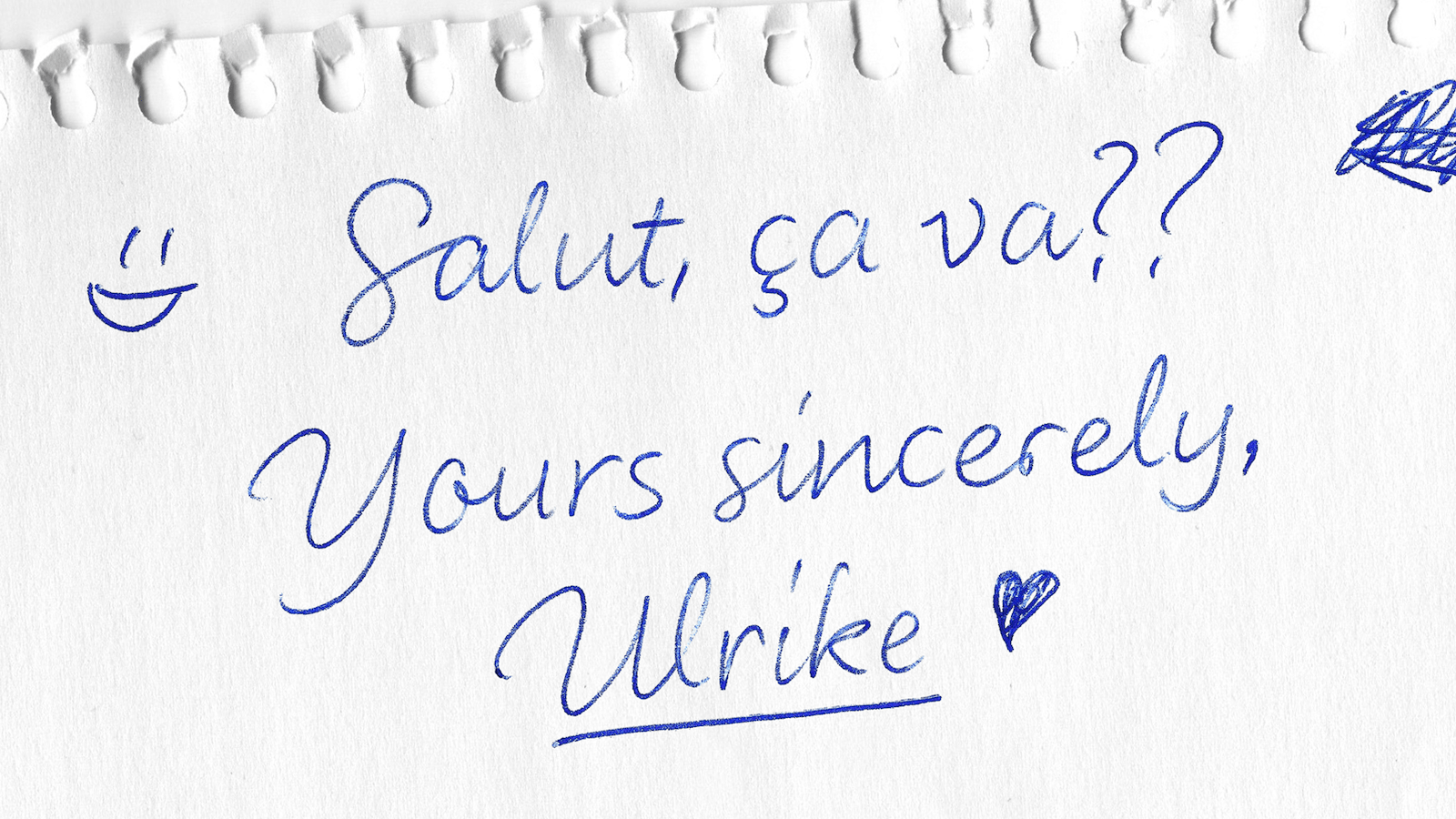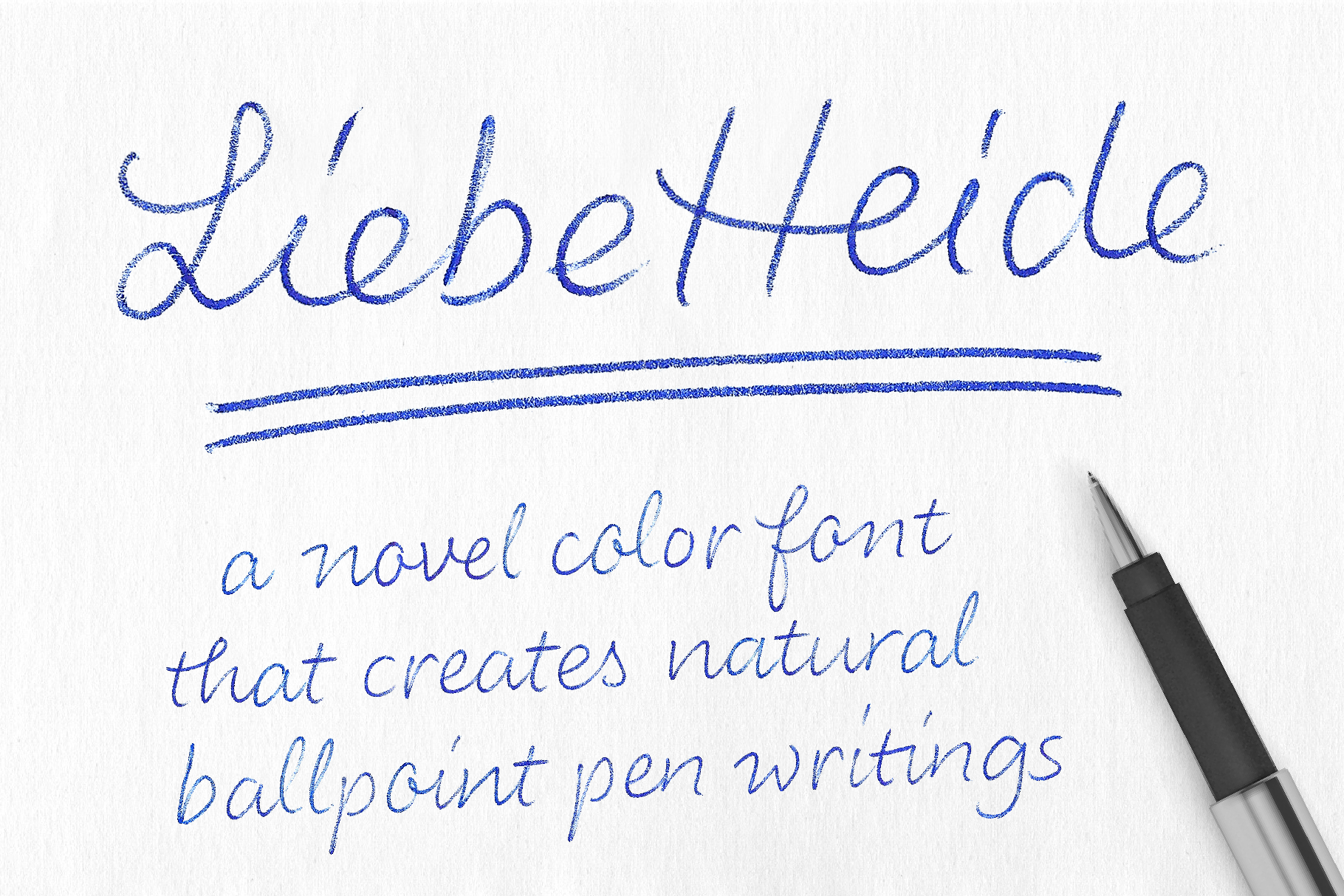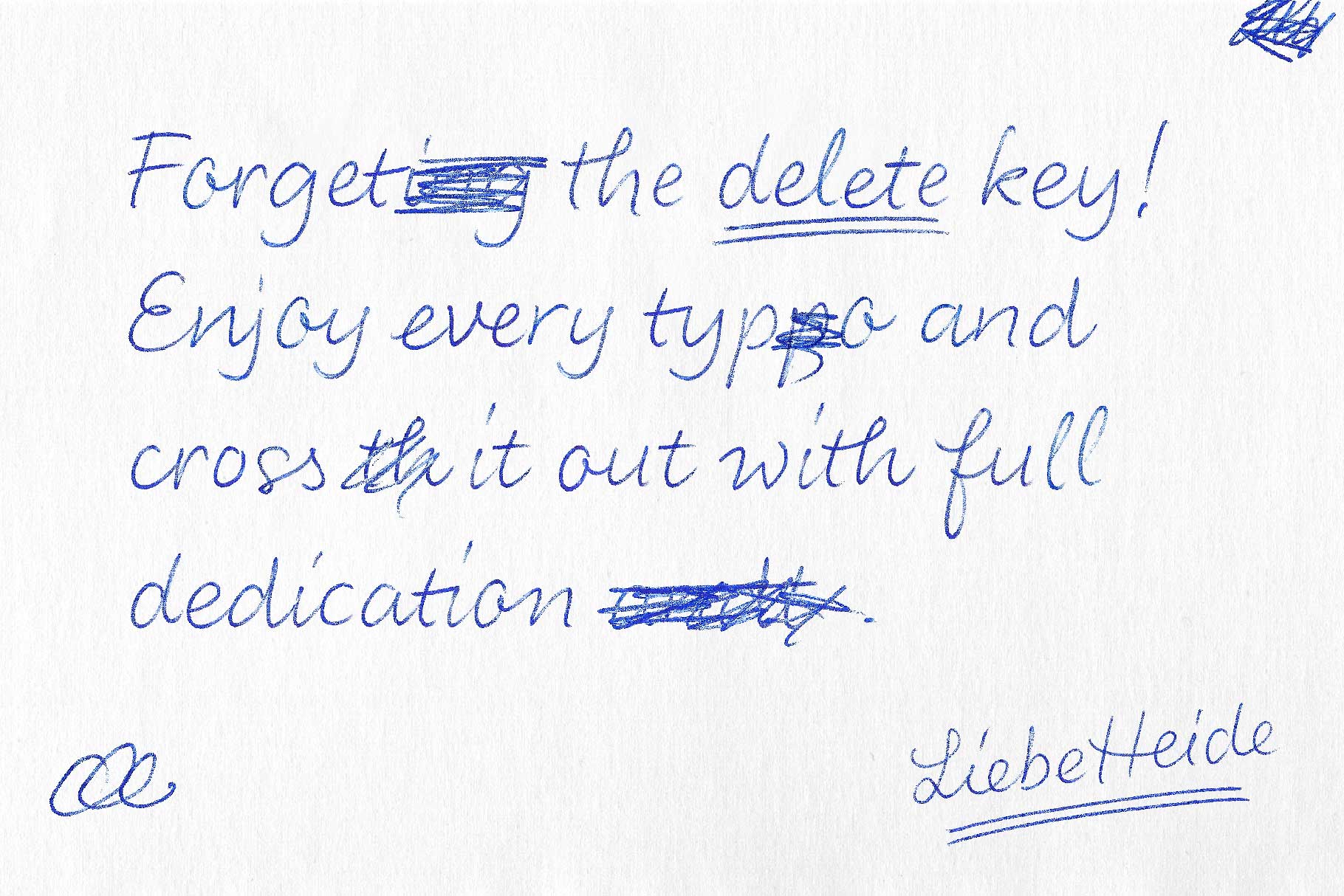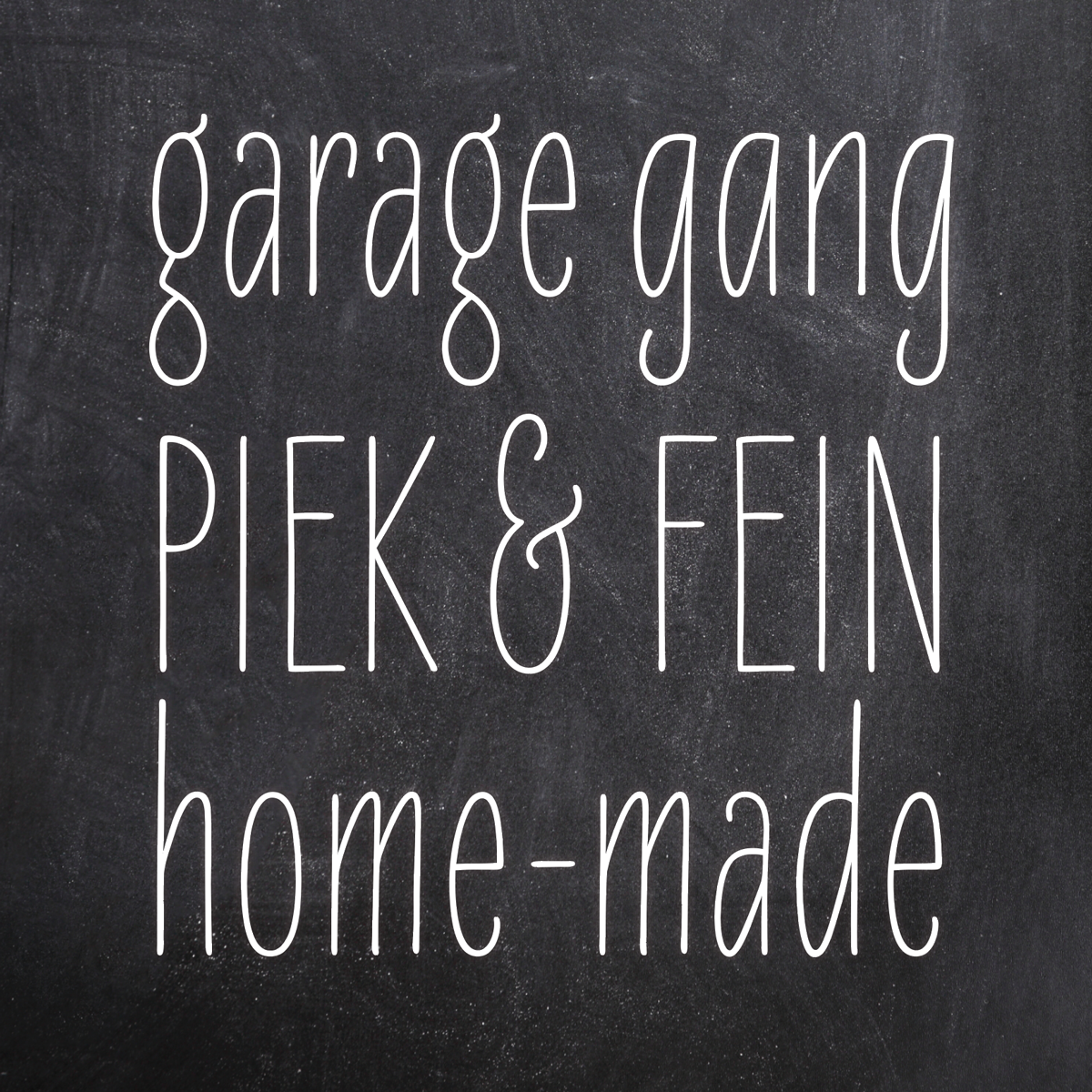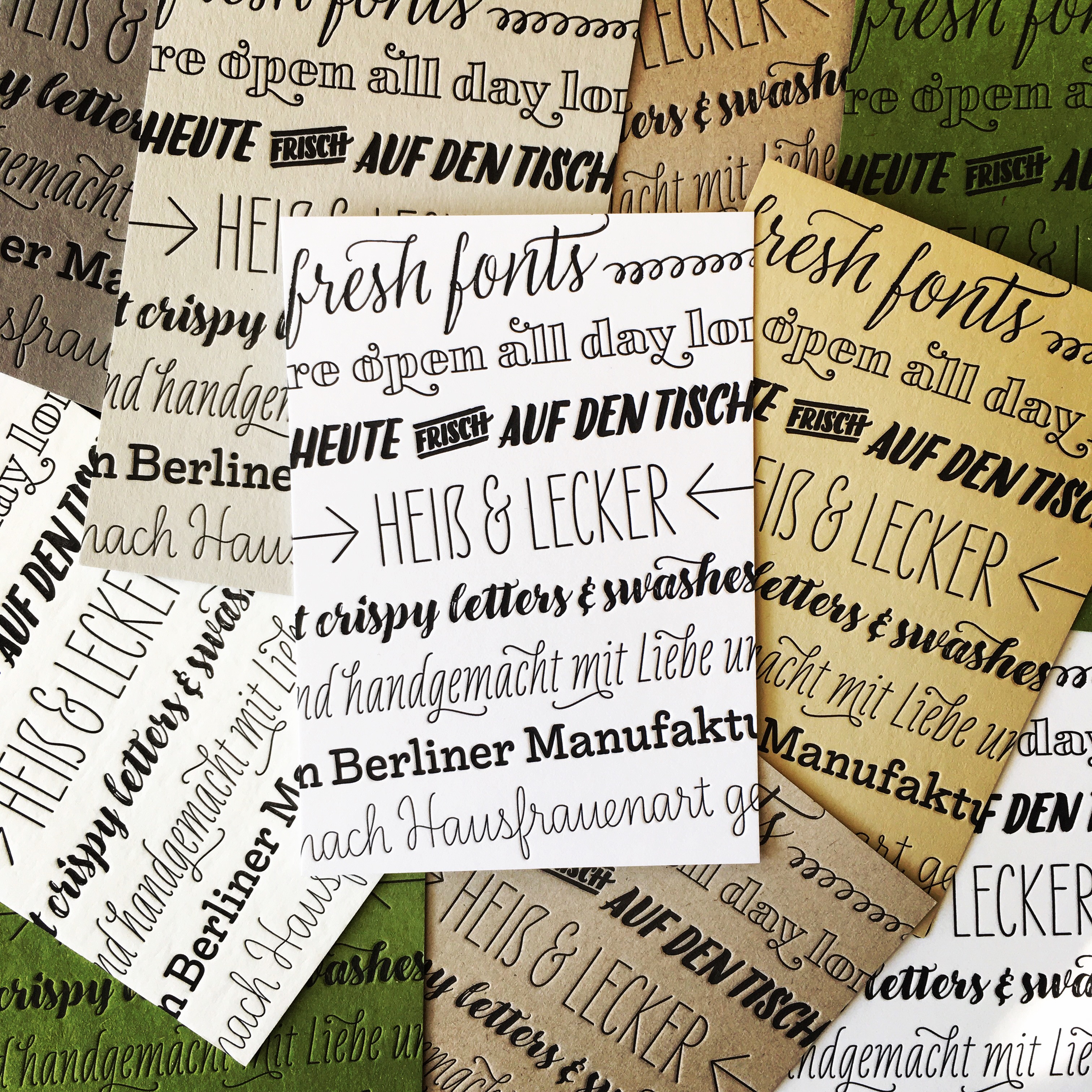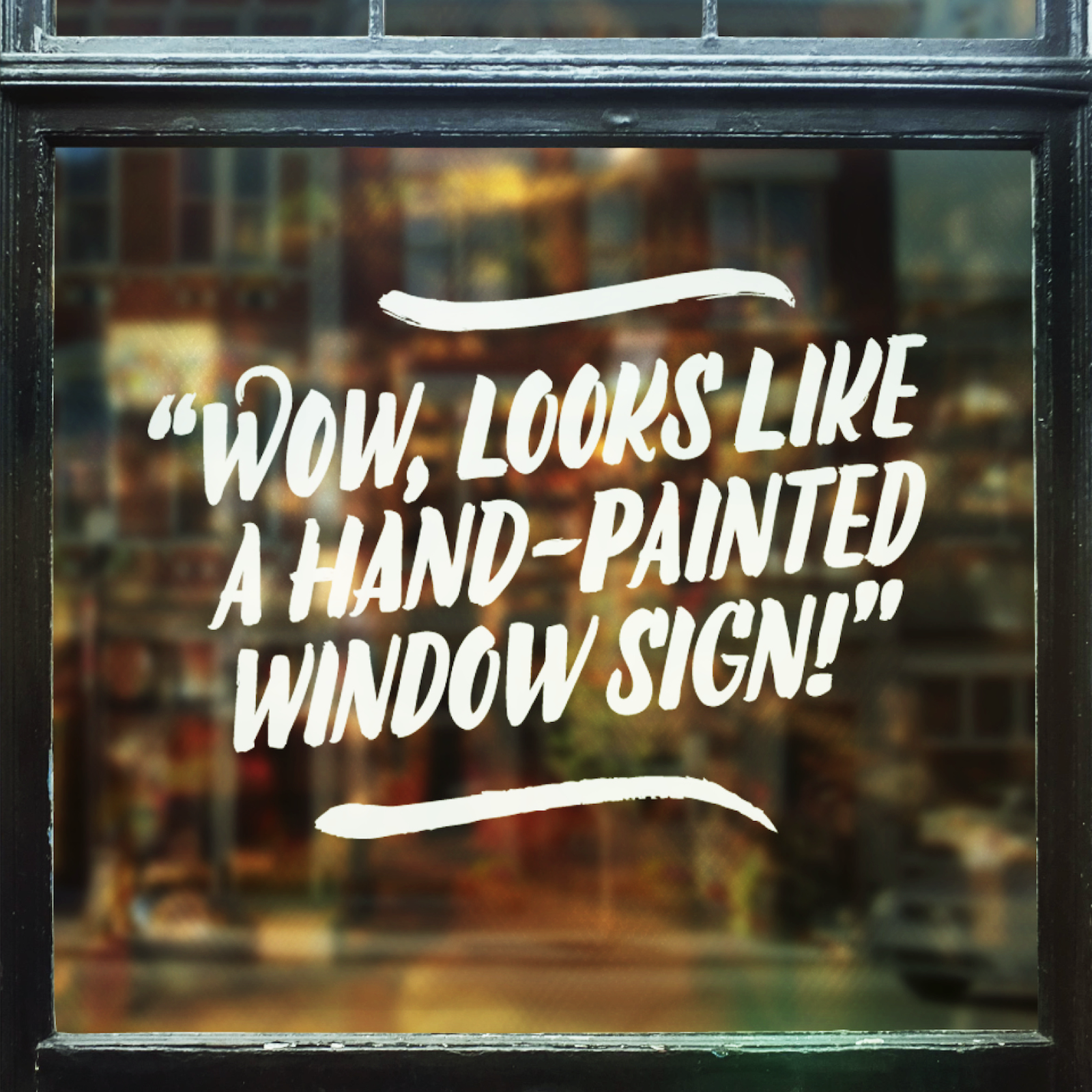
Taking handwriting fonts to the next level
Most people expect type designer Ulrike Rausch is sitting down with pen and paper to design her fonts. But actually, getting from the first drawings to a working font is not a purely analog process but rather a pretty geeky software endeavor.
In her talk, Ulrike demonstrates how she combines numerous ligatures and alternative letterforms with sophisticated OpenType programming and latests font technology to produce handwriting fonts, that can hardly been recognized as a digital product anymore.
In 2009 Berlin-based type designer Ulrike Rausch founded her own type foundry called LiebeFonts, providing high-quality typefaces with a charming personality and obsessive attention to detail. Her growing portfolio of handwriting fonts has been used in publications, advertisements, and websites all around the world. She also creates custom typefaces for clients.
When Ulrike is not busy with her next font release, she enjoys teaching at art schools and giving type design workshops in her studio.
Together with letterer and writer Chris Campe, she wrote the book “Making Fonts!”, a comprehensive guide to type design and font production.
In 2020 Ulrike decided to hit the books again in order to get her Master’s degree at the University of the Arts in Berlin. She successfully graduated in September 2022 with a great deal new knowledge about machines and technologies that reproduce handwriting.
Ulrike Rausch ist Schriftgestalterin in Berlin. In ihrer Type-Foundry LiebeFonts veröffentlicht sie seit zehn Jahren ihre hochwertigen, handgemachten Schriften. Dabei verbindet Ulrike ihr Faible für Handgeschriebenes mit ihrer Begeisterung für Code und ausgefeilte OpenType-Features.
Die Schriften von LiebeFonts kommen weltweit in Publikationen, Anzeigen und auf Webseiten zum Einsatz. Neben ihren eigenen Schriften entwirft Ulrike auch Custom-Fonts für Kunden.
Zusammen mit der Lettering-Designerin Chris Campe hat sie das Buch »Making Fonts!« geschrieben, in dem Ulrike ihr Fachwissen zum Thema Type-Design und Font-Produktion weitergibt.